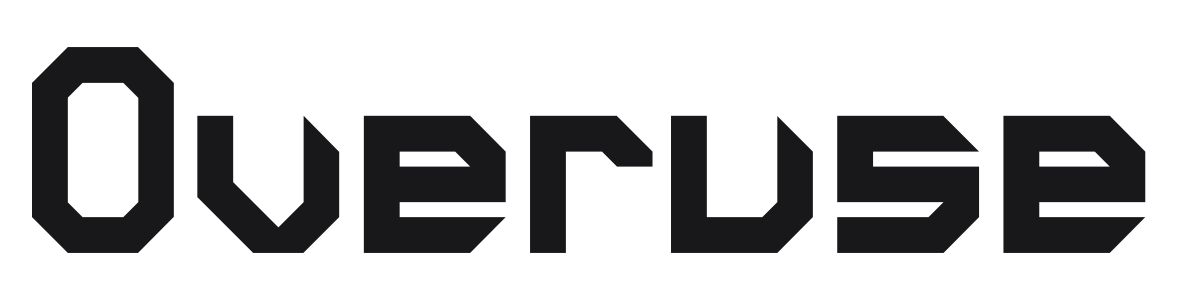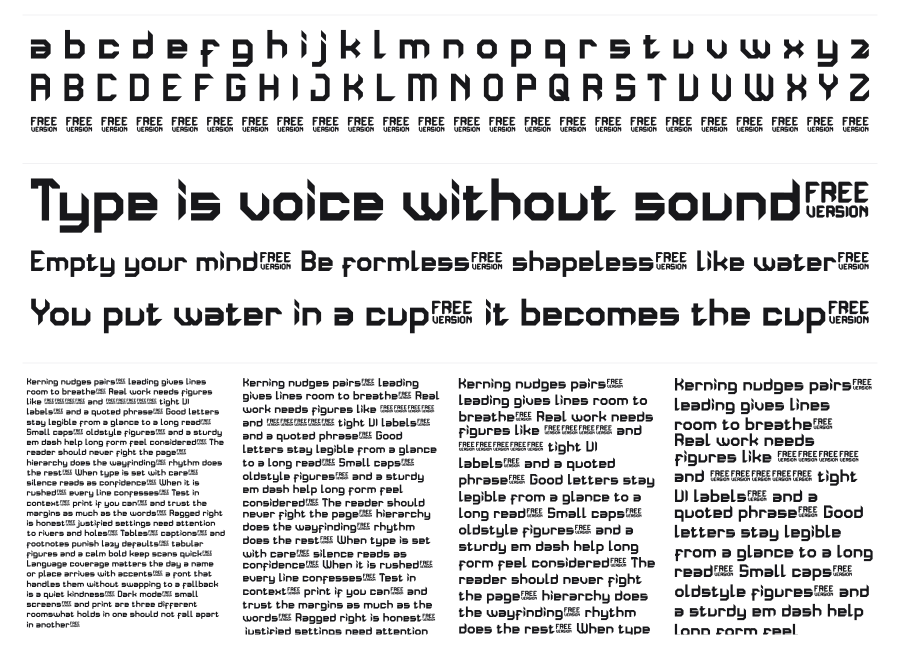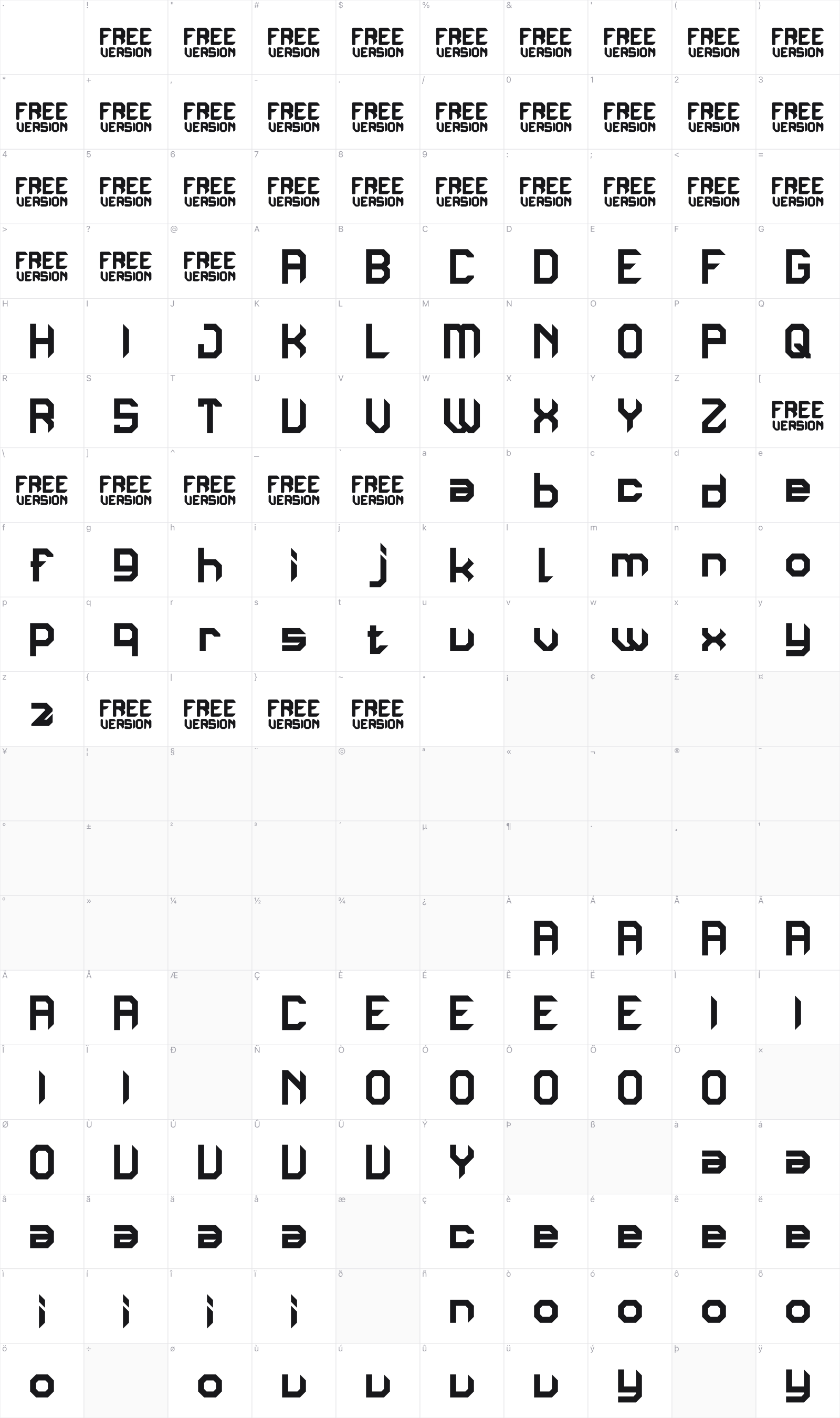
Overuse
Overuse is a bold geometric techno sans built from modular square strokes with sharp diagonal cuts at key terminals and corners. The heavy weight and angular construction give it a raw, urban edge that reads well at large sizes. It carries a distinctly digital-industrial personality suited to gaming, music, and street-culture branding.